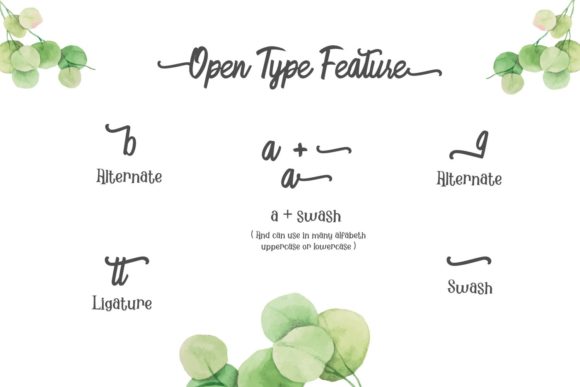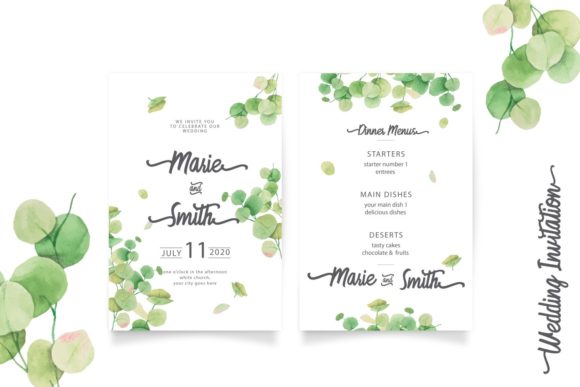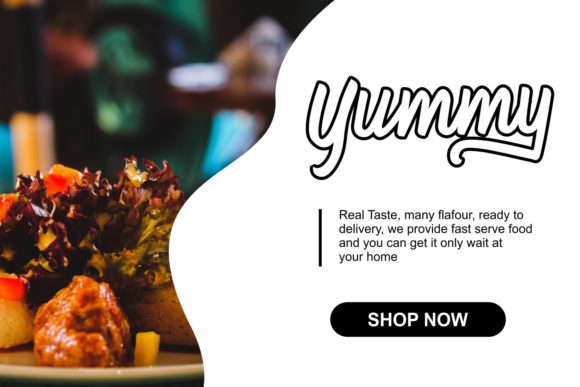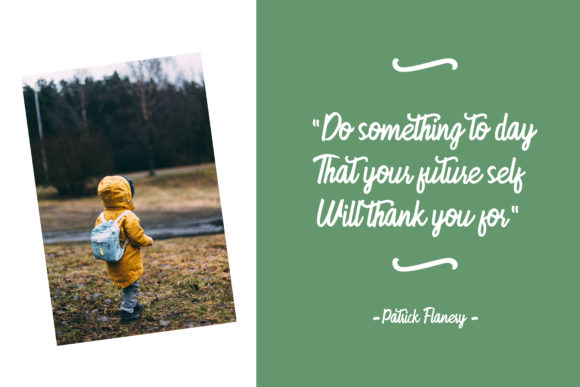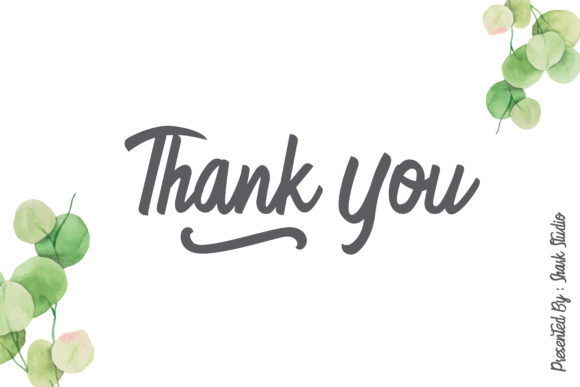
Banttuyin Font
About Banttuyin Font
Banttuyin is a magical handwritten font carefully created with a touch of elegance. It features an incredibly classic style, while still keeping a friendly feel. This font is the perfect fit for making original and outstanding designs.